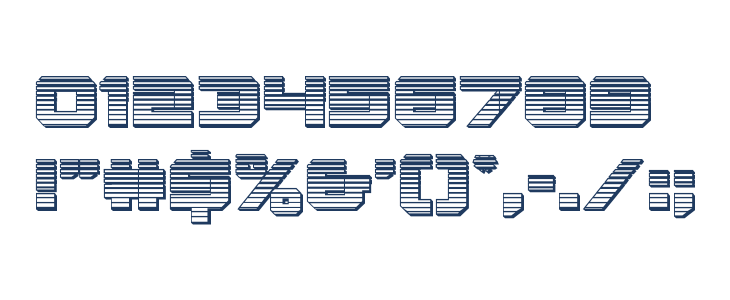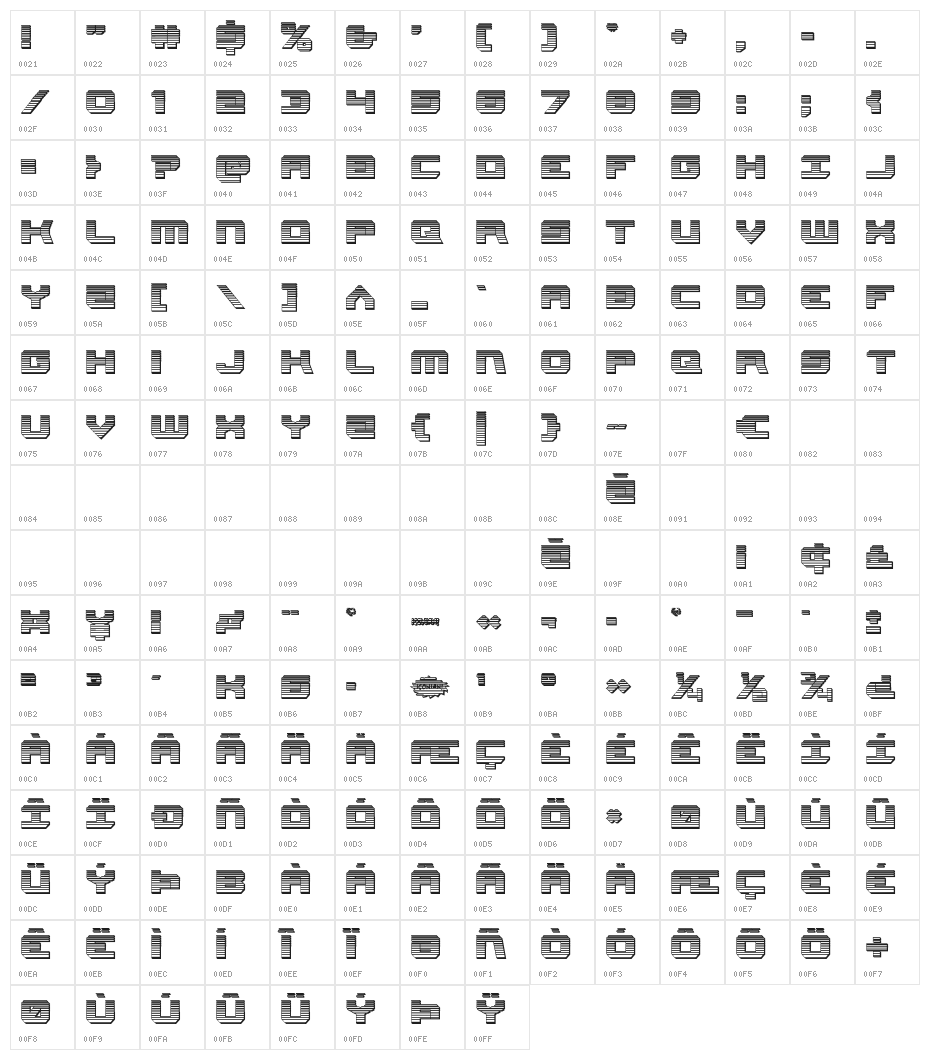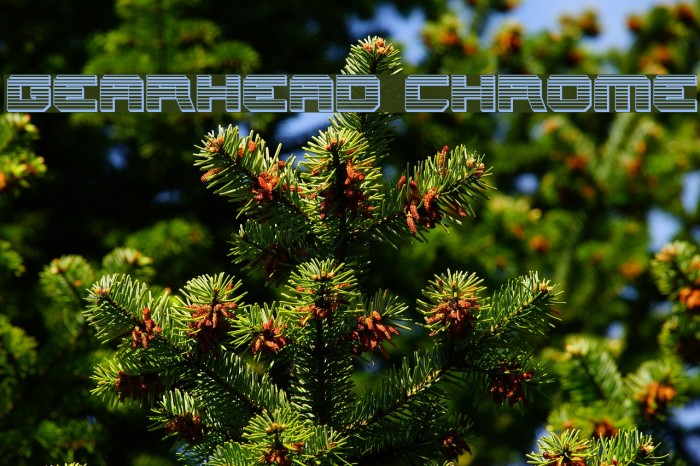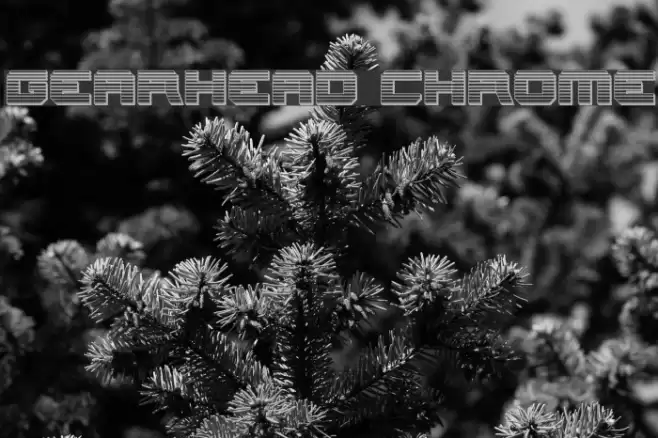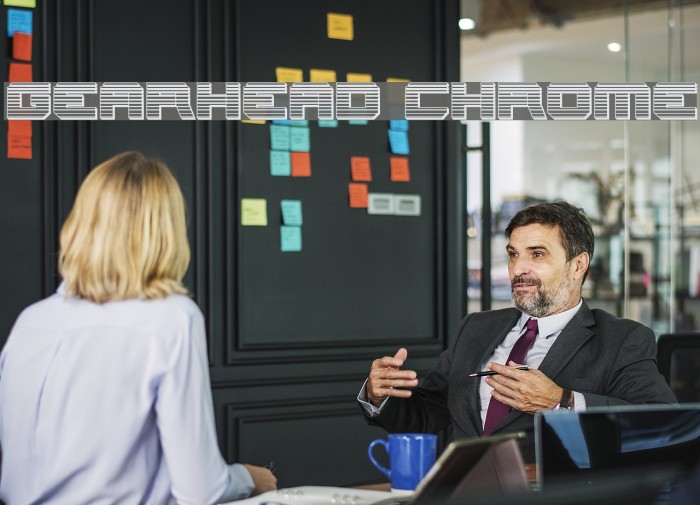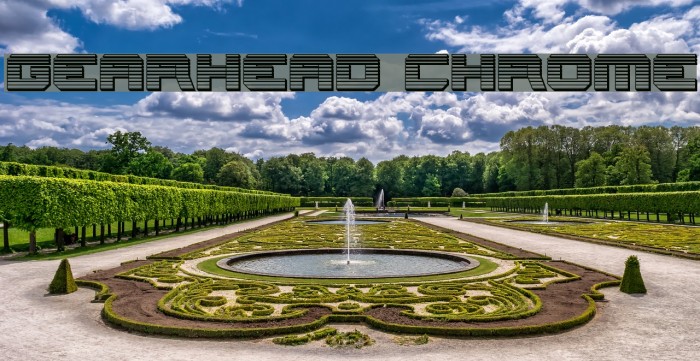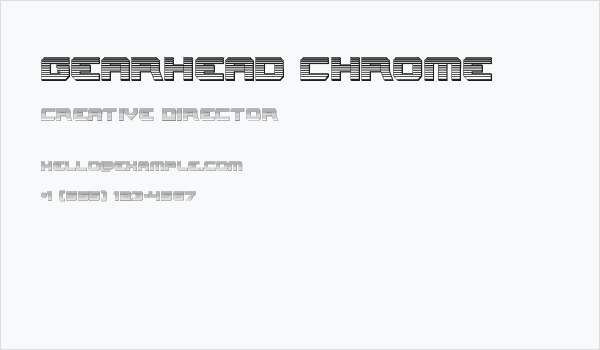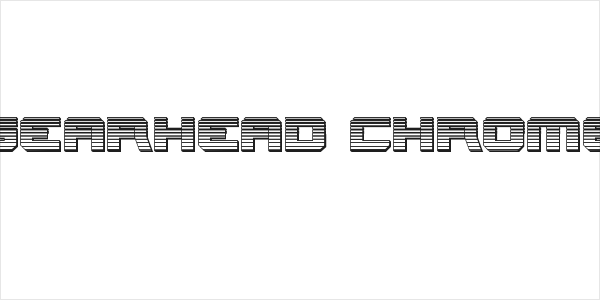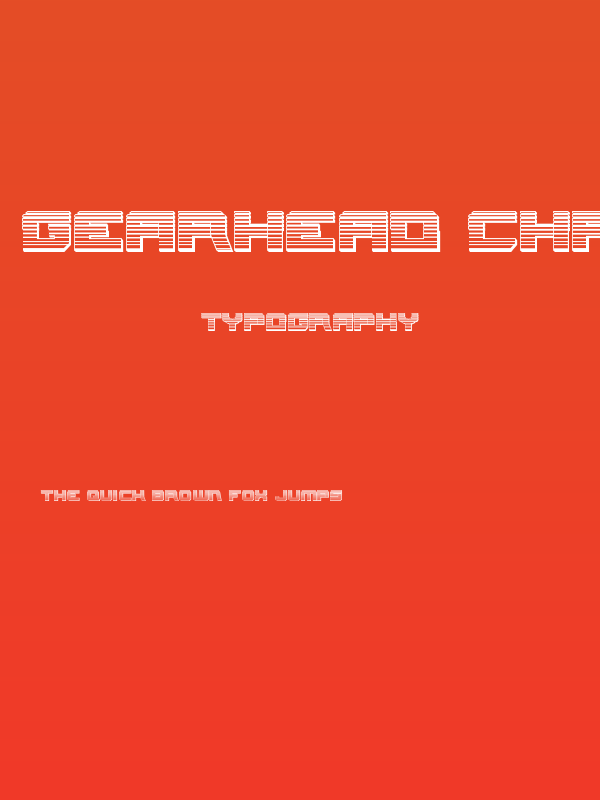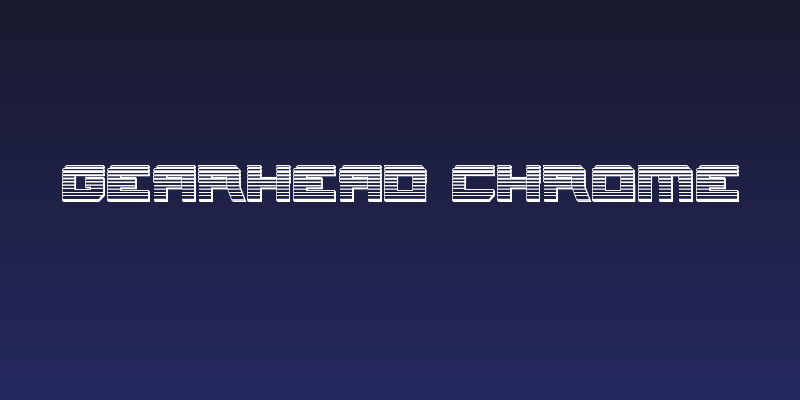
Gearhead Chrome Font
Gearhead Chrome Description
This font features a bold, futuristic design with a distinct three-dimensional appearance. Each character is constructed with multiple parallel lines, creating a layered effect that adds depth and visual interest. The geometric shapes and sharp angles give it a modern, industrial feel, reminiscent of machinery and technology. The uppercase and lowercase letters maintain a consistent style, ensuring uniformity across text. Numbers and special characters are designed with the same attention to detail, making them easily recognizable while maintaining the font's unique aesthetic.
| Overall Style | Futuristic, Industrial |
| Proposed Projects | Ideal for technology-themed projects, sci-fi posters, video game titles, and branding for tech companies. |